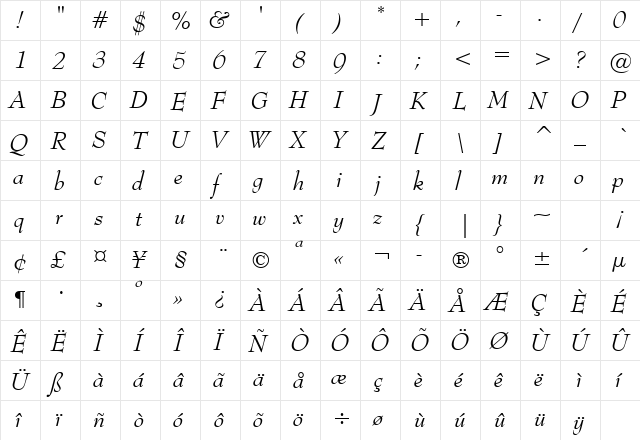
Bernhard Modern GX BT Italic Font Preview
Bernhard Modern GX BT Italic
Bernhard Modern GX BT Italic Font Details
Design Context for Bernhard Modern GX BT Typeface
Bernhard Modern GX BT offers clean, dependable letterforms without strong stylistic allegiance, making it a practical choice for designers who need flexibility. The slanted form adds forward momentum and visual energy.
Pro Tip: Try Bernhard Modern GX BT for annotation and caption copy alongside an upright companion — the contrast in angle creates a dynamic but ordered typographic system.